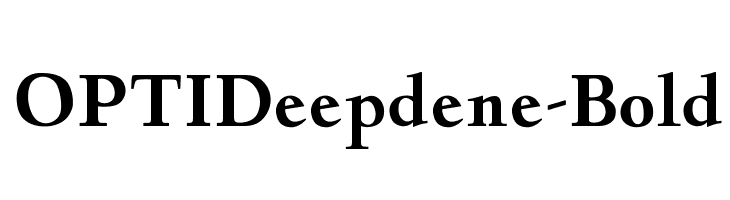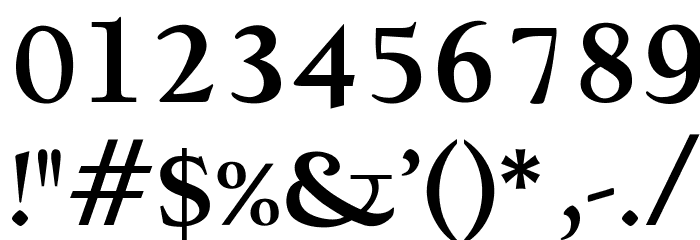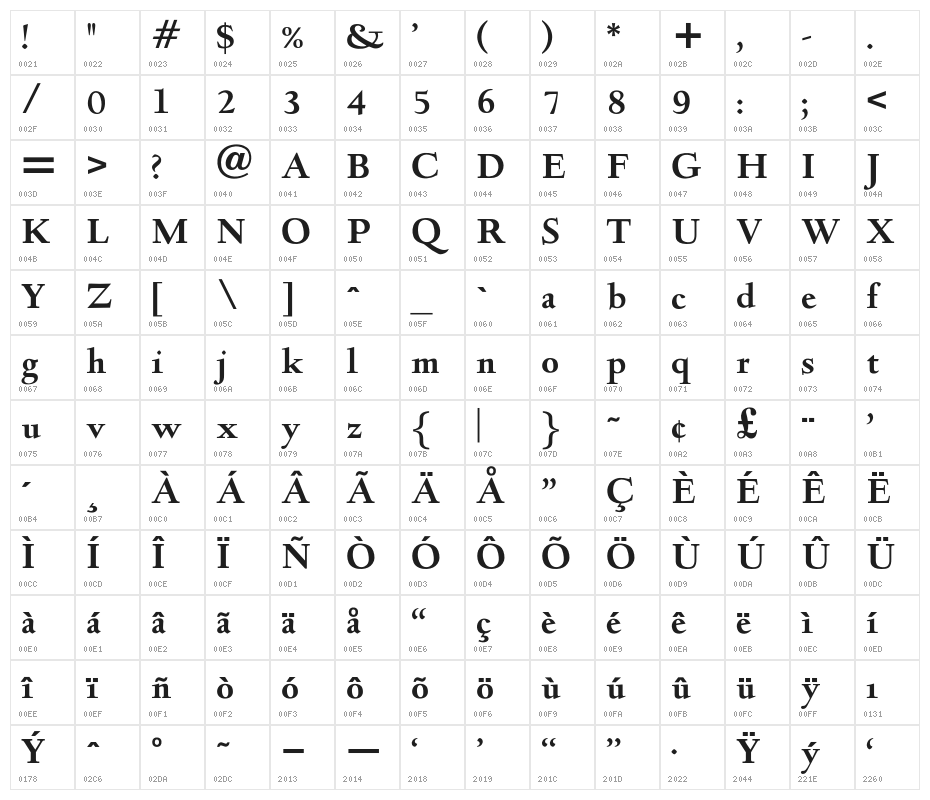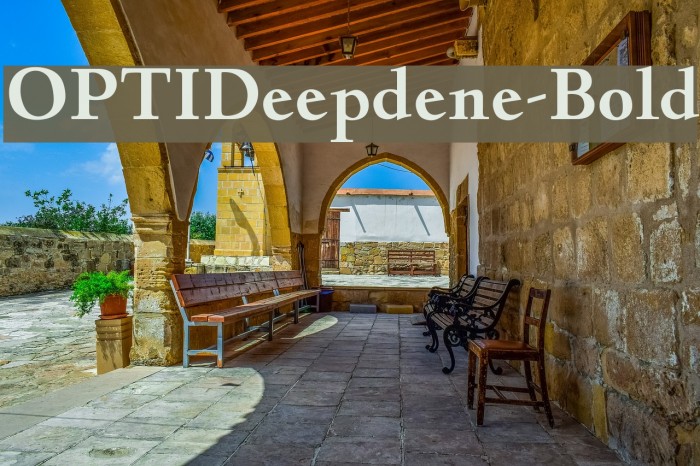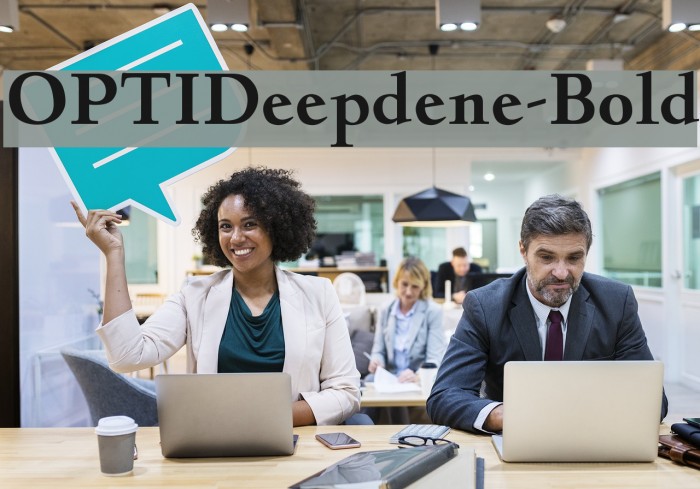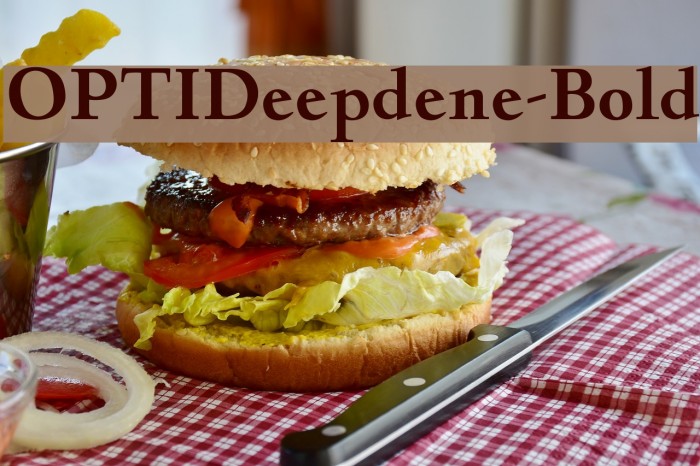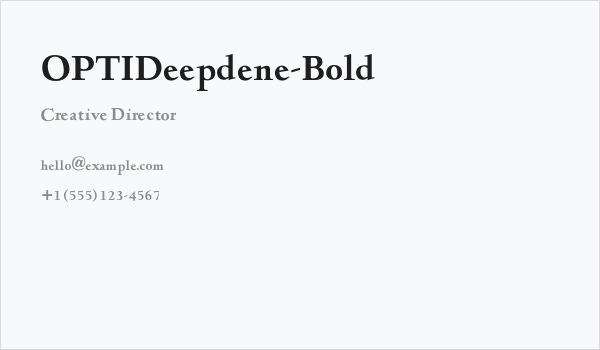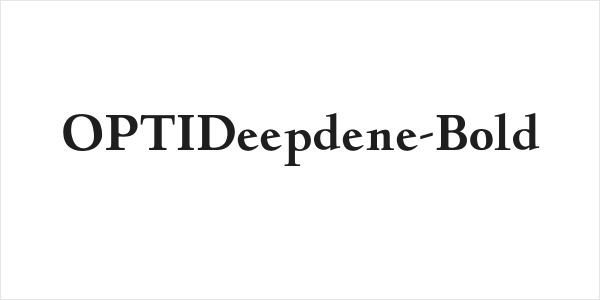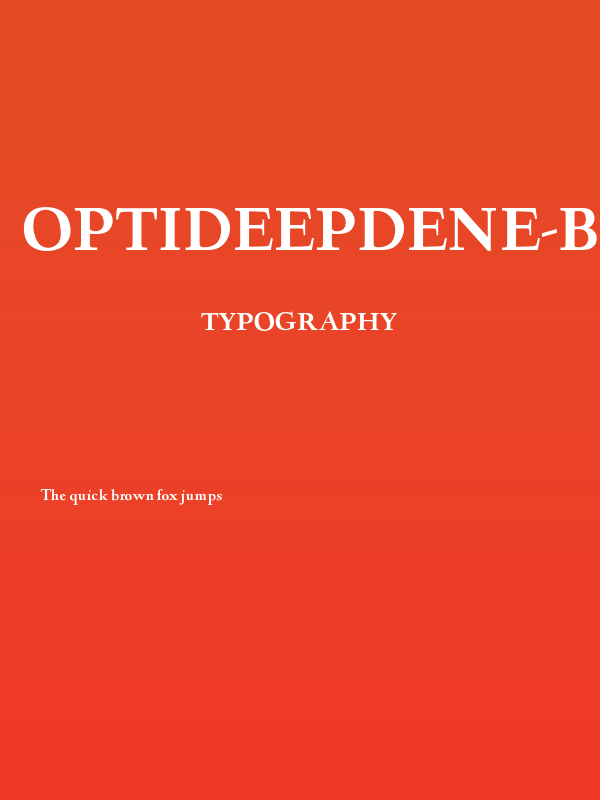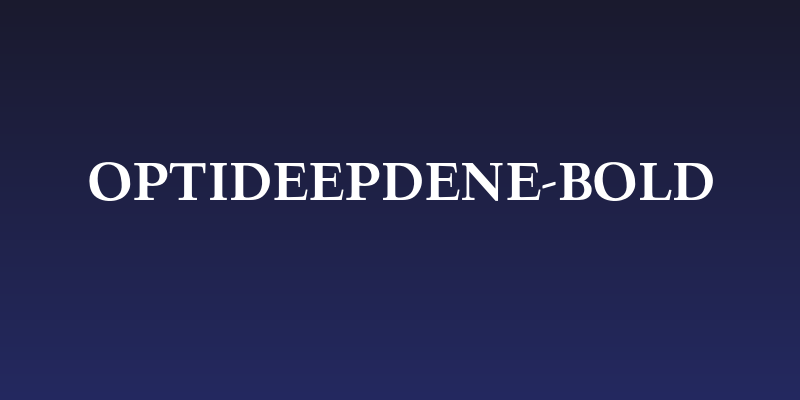
OPTIDeepdene-Bold Font
OPTIDeepdene-Bold Description
This typeface exhibits a classic serif style with a bold weight, characterized by its strong and authoritative presence. The serifs are pronounced and slightly bracketed, providing a traditional and formal appearance. The uppercase letters are well-proportioned, with a slight contrast in stroke thickness that adds to the elegance of the design. The lowercase letters maintain a consistent style, with rounded forms and clear legibility. The numerals are distinct and balanced, while the special characters are crafted to complement the overall aesthetic. This font is suitable for projects that require a touch of sophistication and timeless appeal.
Overall StyleClassic
Use CaseHeadlines, Logos, Editorial design
Proposed ProjectsIdeal for book covers, formal invitations, branding, and editorial design.